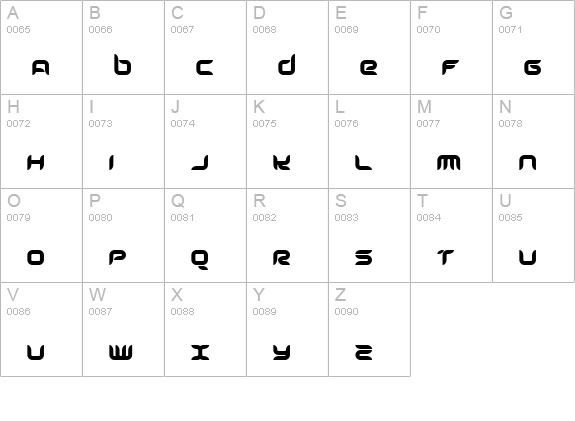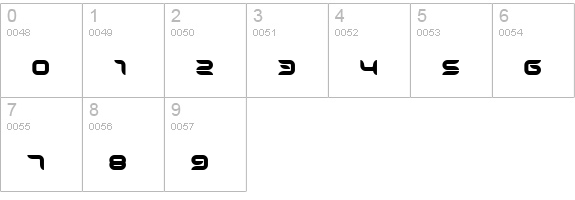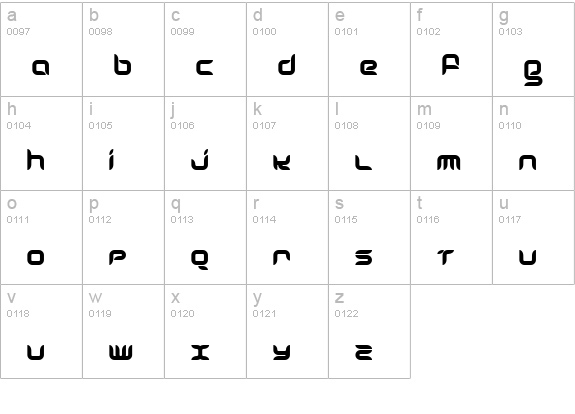
Freshbot Font Details
Introducing Freshbot font, a modern and stylish typeface designed to bring a fresh and contemporary vibe to your projects. With its sleek lines and clean design, Freshbot is perfect for a variety of design applications, from branding to packaging to web design. What sets Freshbot apart is not only its striking aesthetics but also its versatility. This font is incredibly adaptable and can be used for both headlines and body text, making it a valuable addition to any designer's toolkit. But the best part? Freshbot is completely free to download at FontsMarket.com! Yes, you read that right - this high-quality font can be yours at no cost, allowing you to elevate your designs without breaking the bank. Don't miss out on the opportunity to add Freshbot to your font collection today.